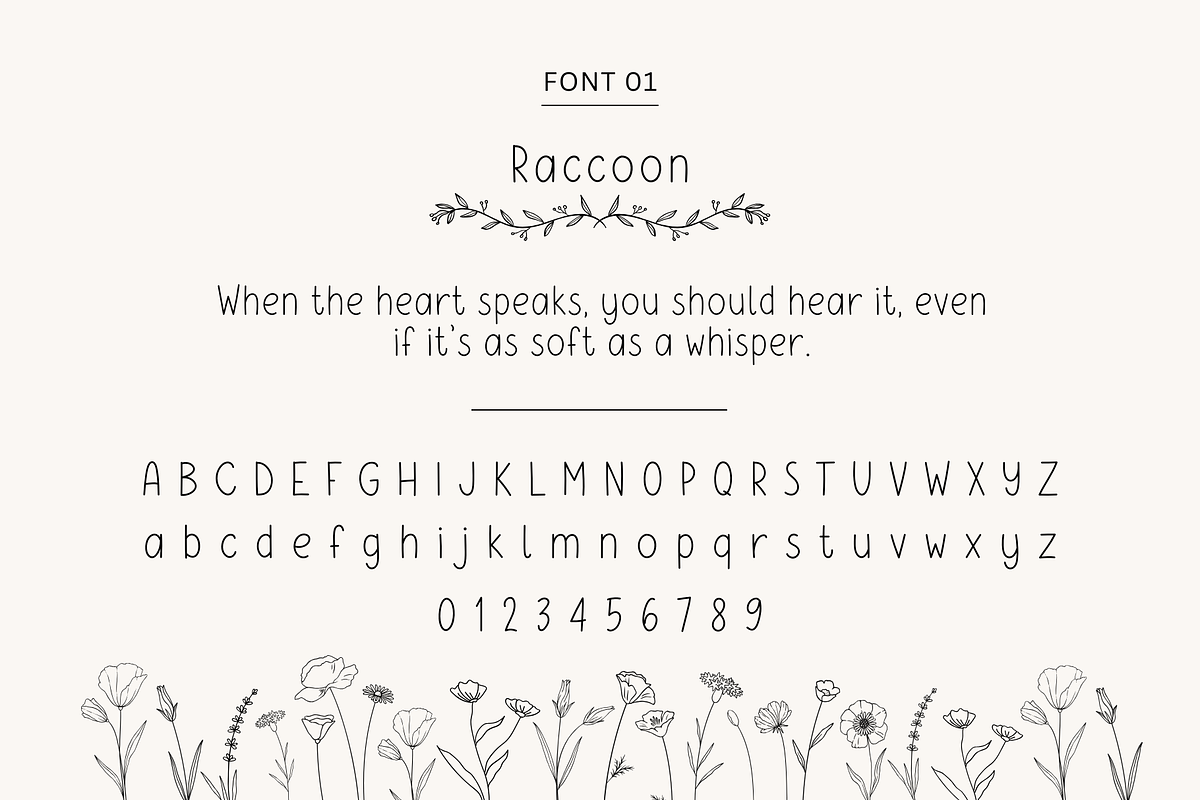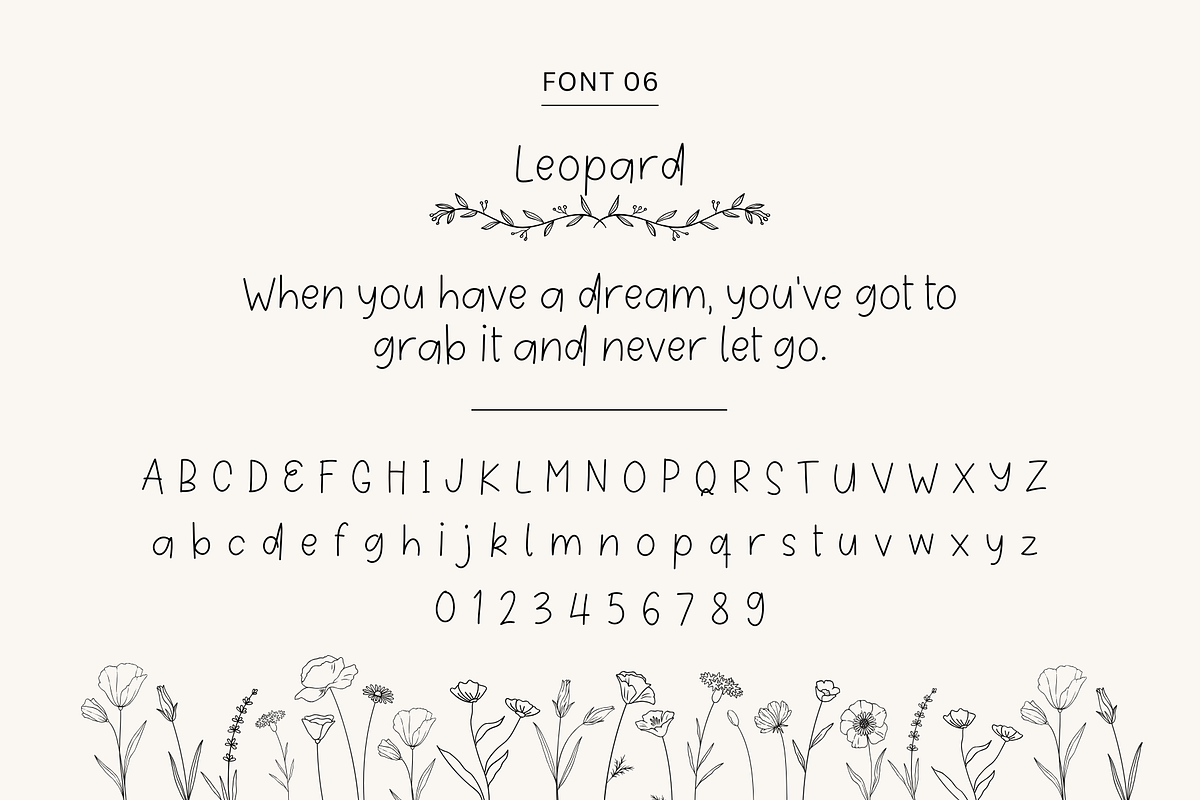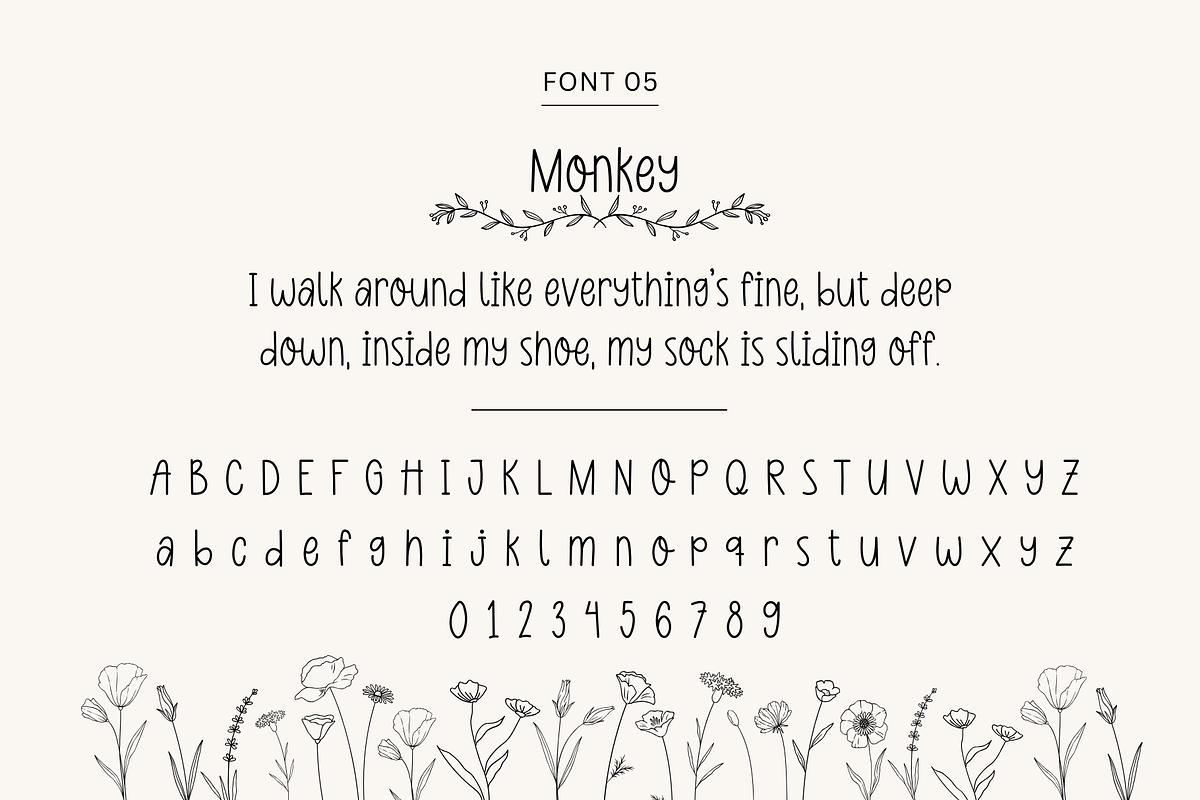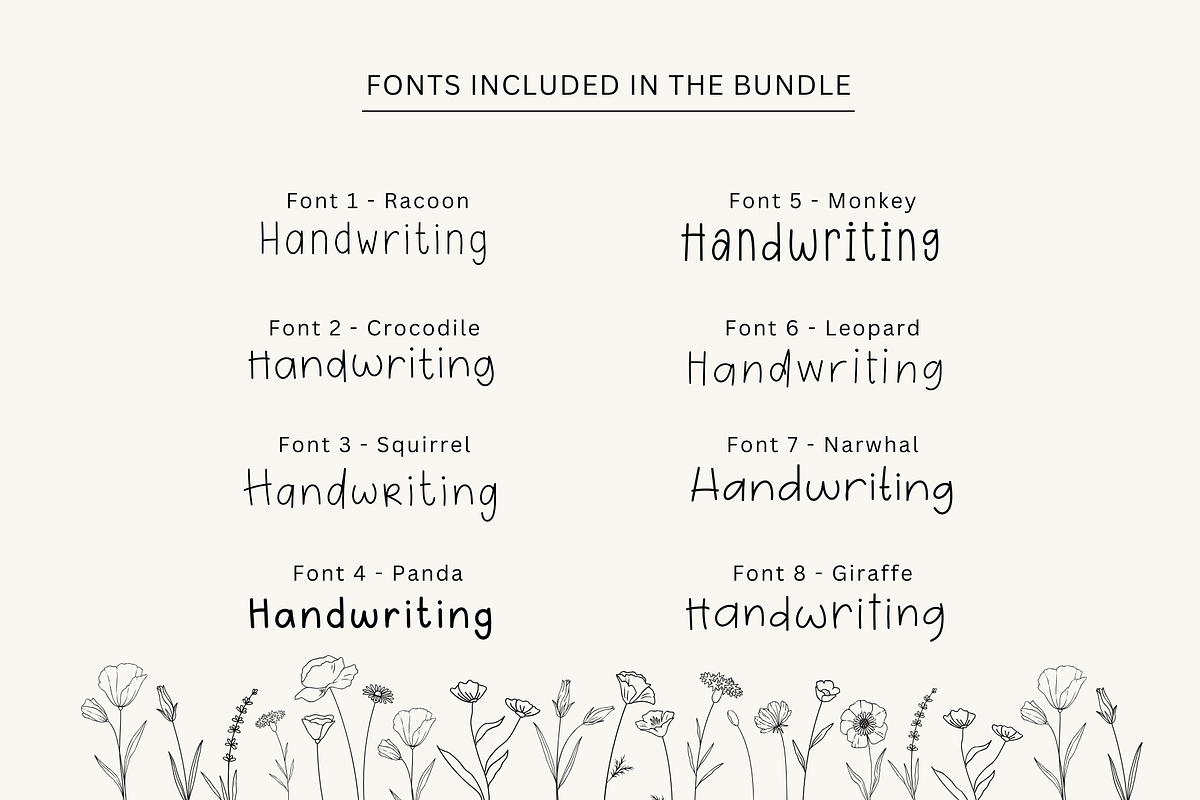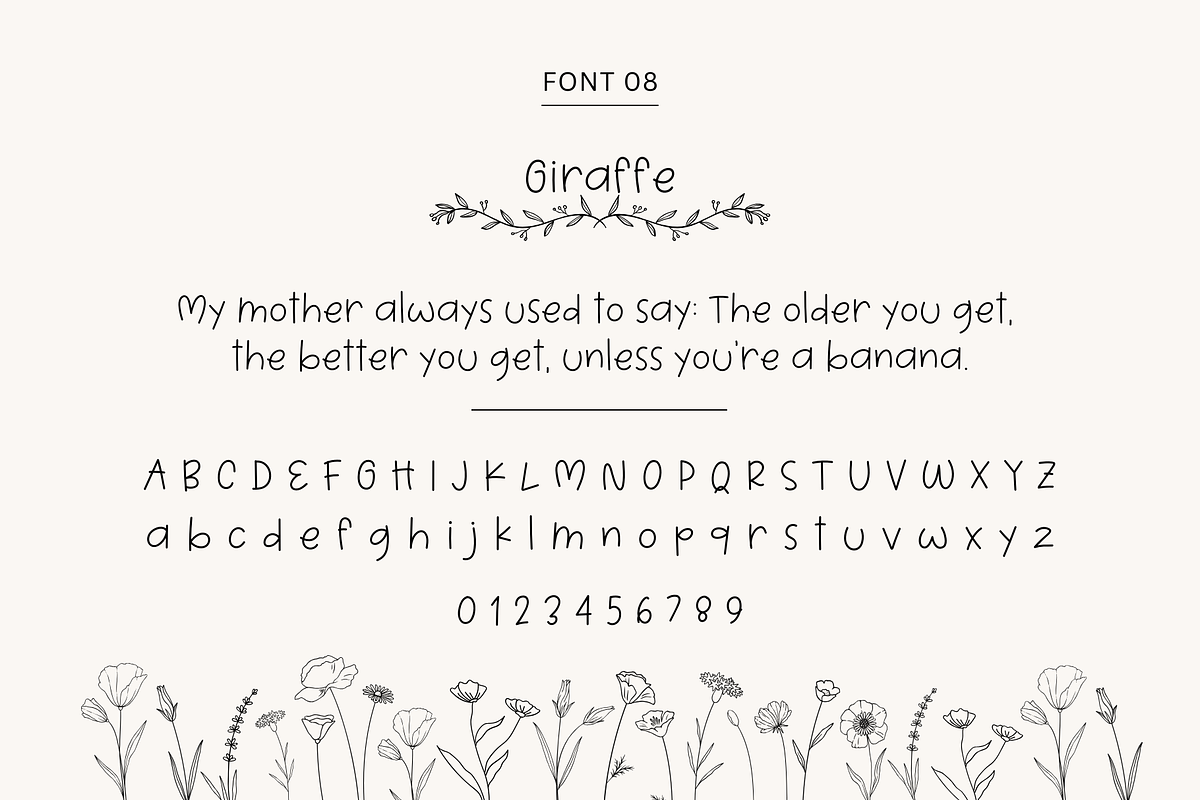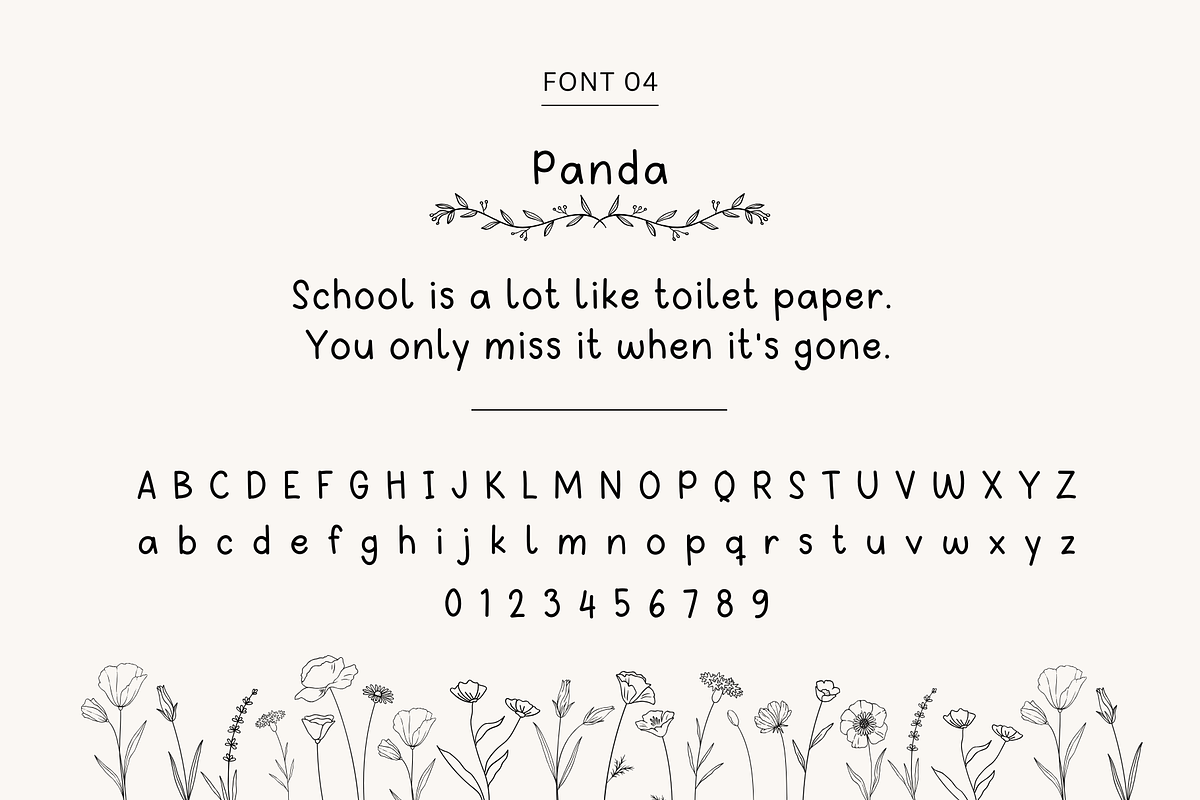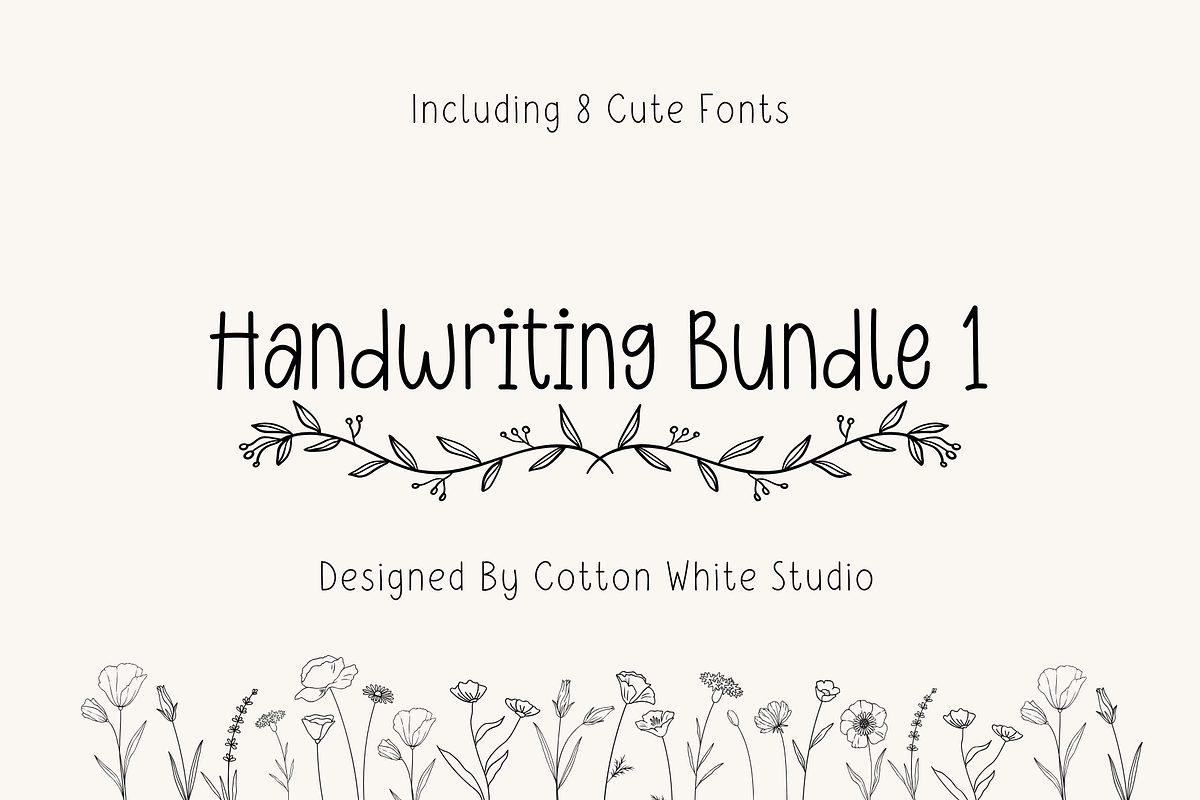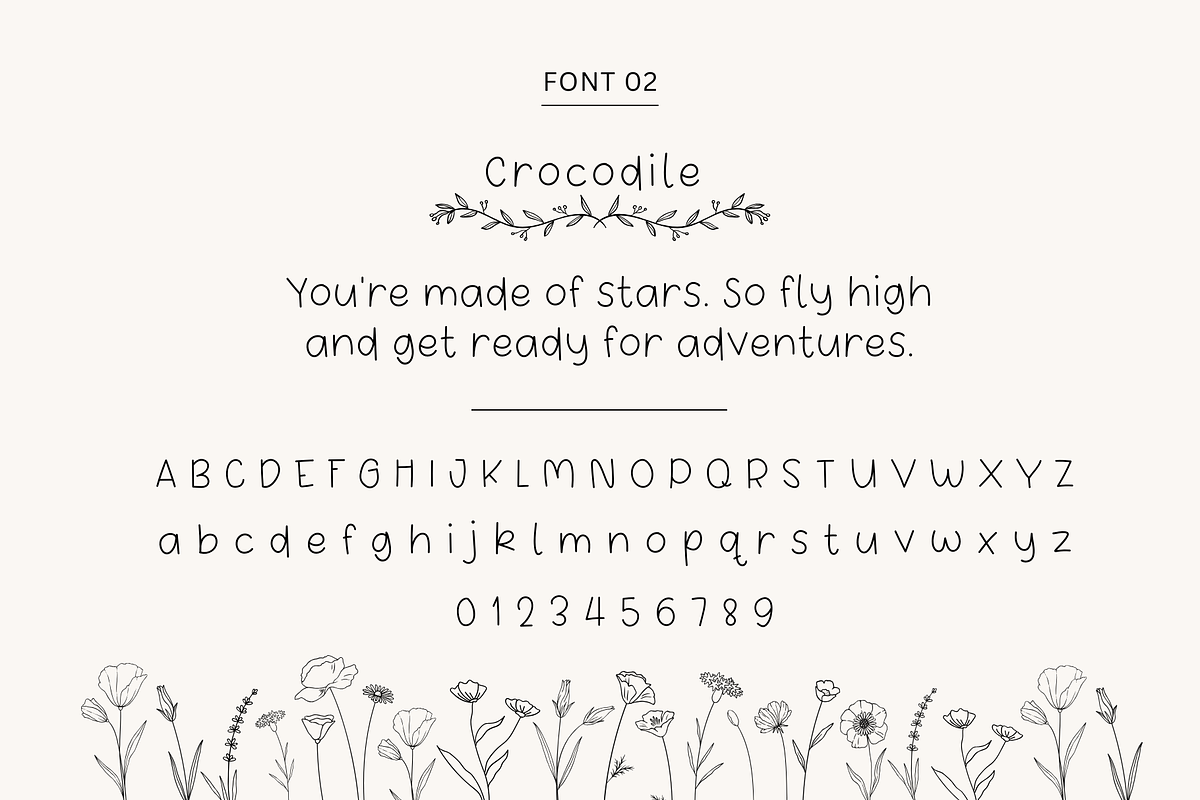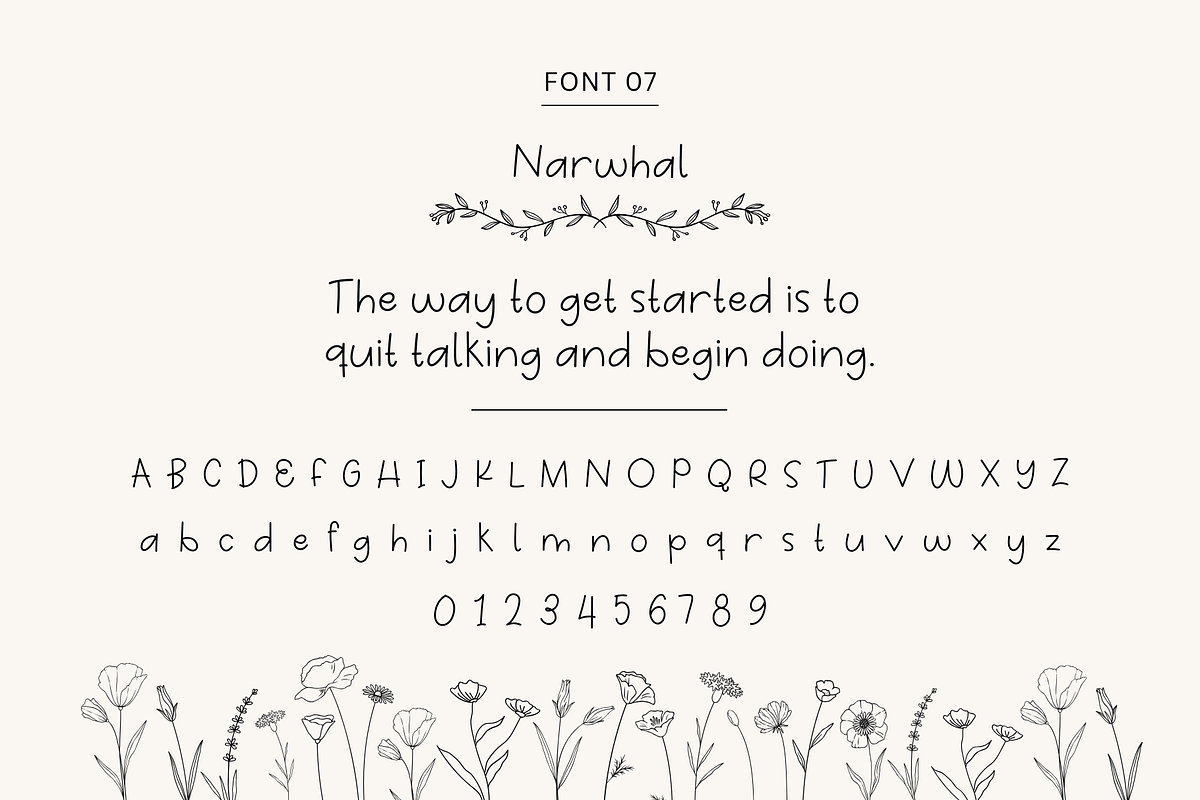
Handwriting Bundle 1
A bundle of 8 unique handwritten fonts. (UPDATED WITH MULTILINGUAL SUPPORT) Perfect for digital notes and planners, and other fun projects that require a cute handwriting style.
Raccoon
Crocodile
Squirrel
Panda
Monkey
Leopard
Narwhal
Giraffe